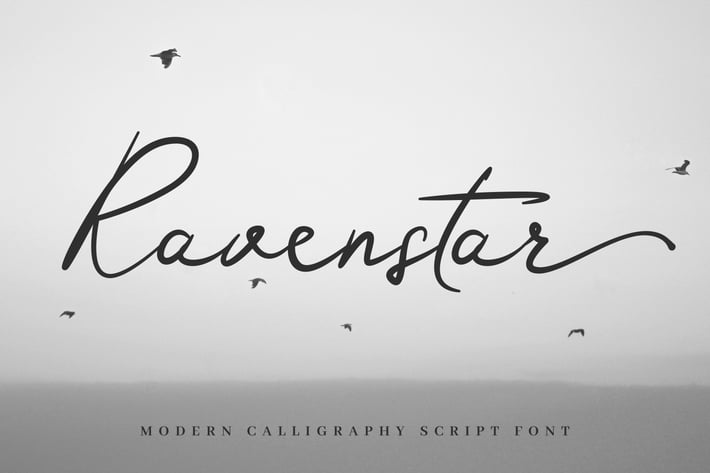
Ravenstar - Modern Script Font
Say hello to Ravenstar - a modern & elegant script font. Perfect for pairing with any clean serif or sans-serif font.
This is a perfect option for feminine and classy logos, branding, wedding invitations and much more.
PS! The serif font in the previews is Abhaya Libre, which is free to download under SIL Open Font License v1.10.